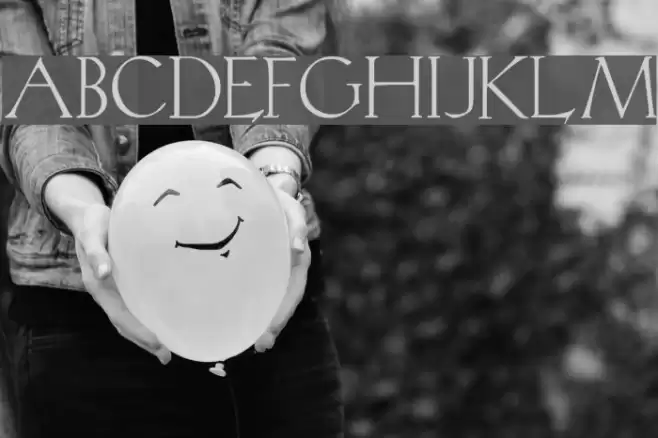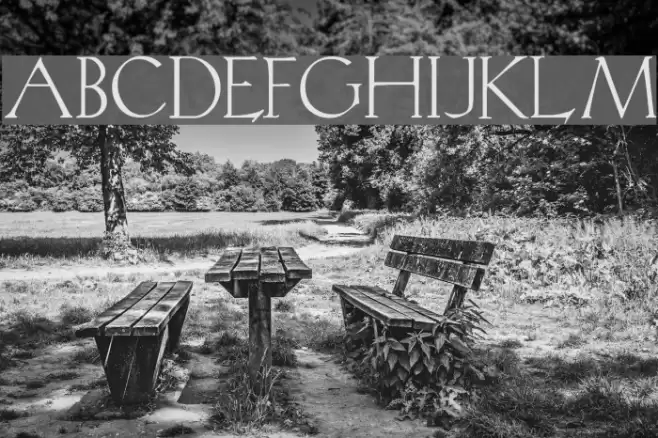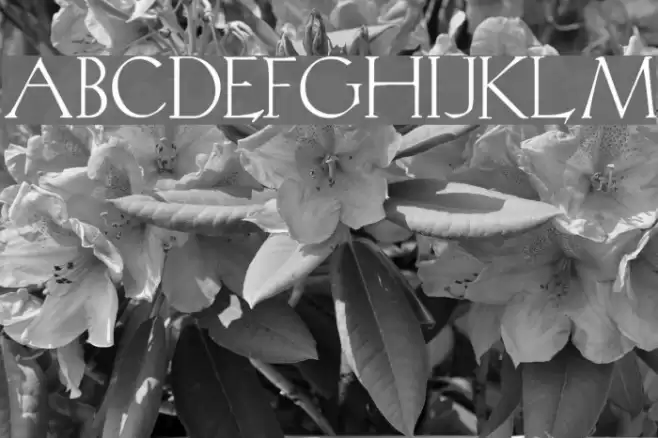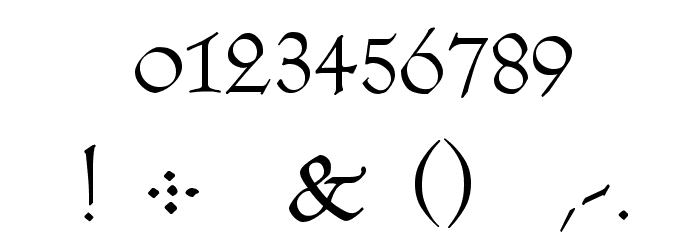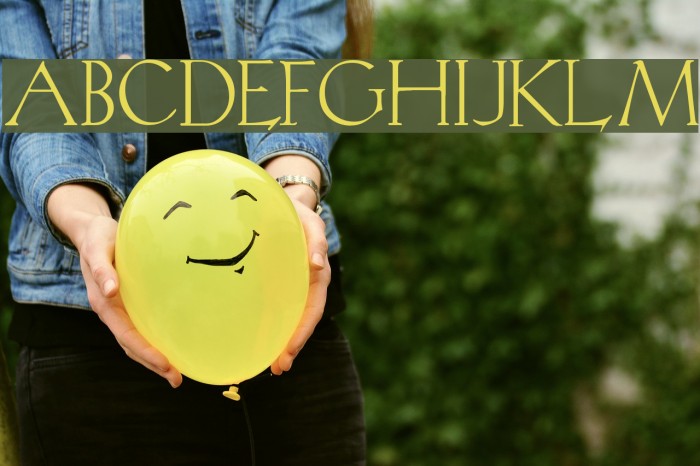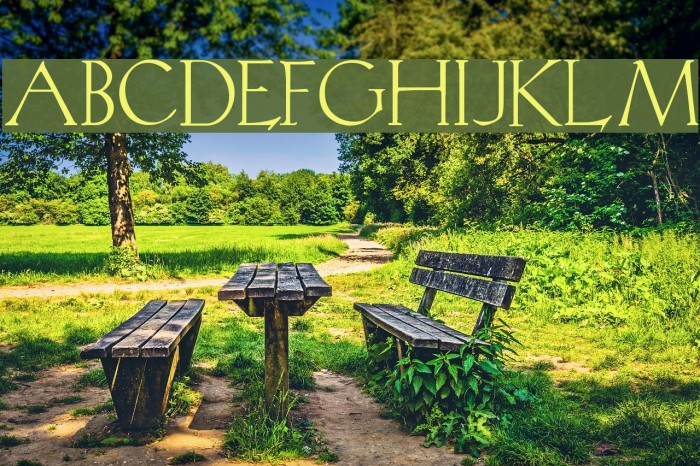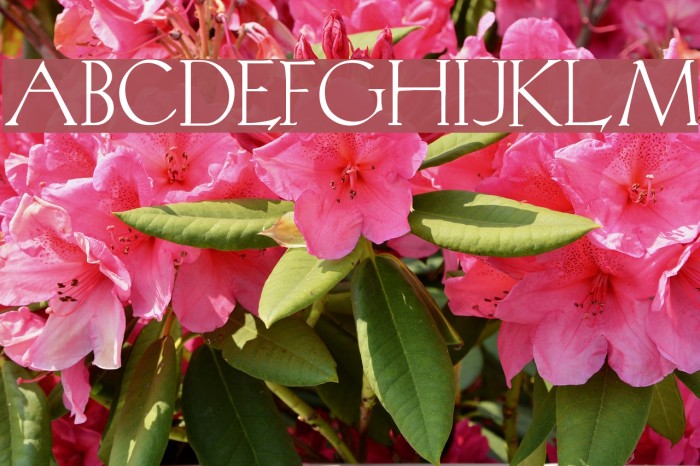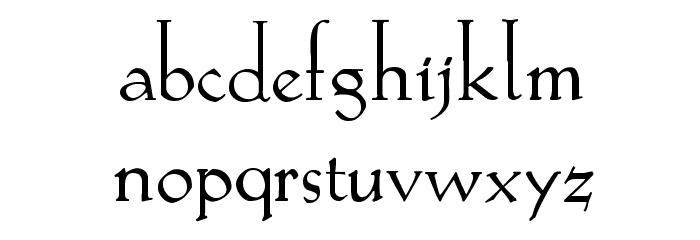
KochRead Font
KochRead Description
This font exhibits a classic and elegant style with a touch of medieval influence. The uppercase letters are tall and slender, featuring sharp serifs that add a sense of sophistication. The lowercase letters maintain a consistent style, with some characters like 'g' and 'y' having distinctive descenders that enhance the font's unique appearance. The numerals are clear and legible, with a slight curvature that complements the overall design. Special characters are crafted with attention to detail, ensuring they blend seamlessly with the rest of the font. This typeface is ideal for projects that require a historical or formal touch, offering a balance between readability and artistic flair.
A classic, elegant serif font with medieval influences and sharp serifs from Script fonts.
- Proposed Projects: Suitable for historical documents, formal invitations, book covers, and branding that requires a classic touch.
- Overall Style: Classic
- Use Case: Headlines, Logos, Formal documents